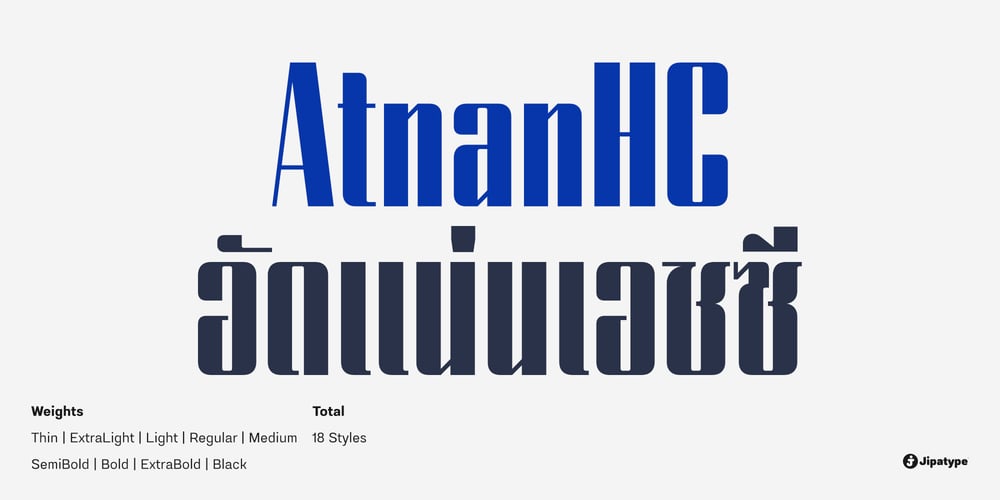
Atnan HC Font Family was designed by Anupap Jaichumnan and published by Jipatype. Atnan HC contains 18 styles and family package options. Atnan HC is a sans-serif typeface designed to be compressed. The overall letterform structure has a flat-backed square characteristic with enhanced contrast in the letterforms. It is suitable for promotional materials with limited space or when creating attention-grabbing headlines. The font consists of 18 styles, covering weights from the thin to the black weight, and supports both Latin 1 and Thai character sets.